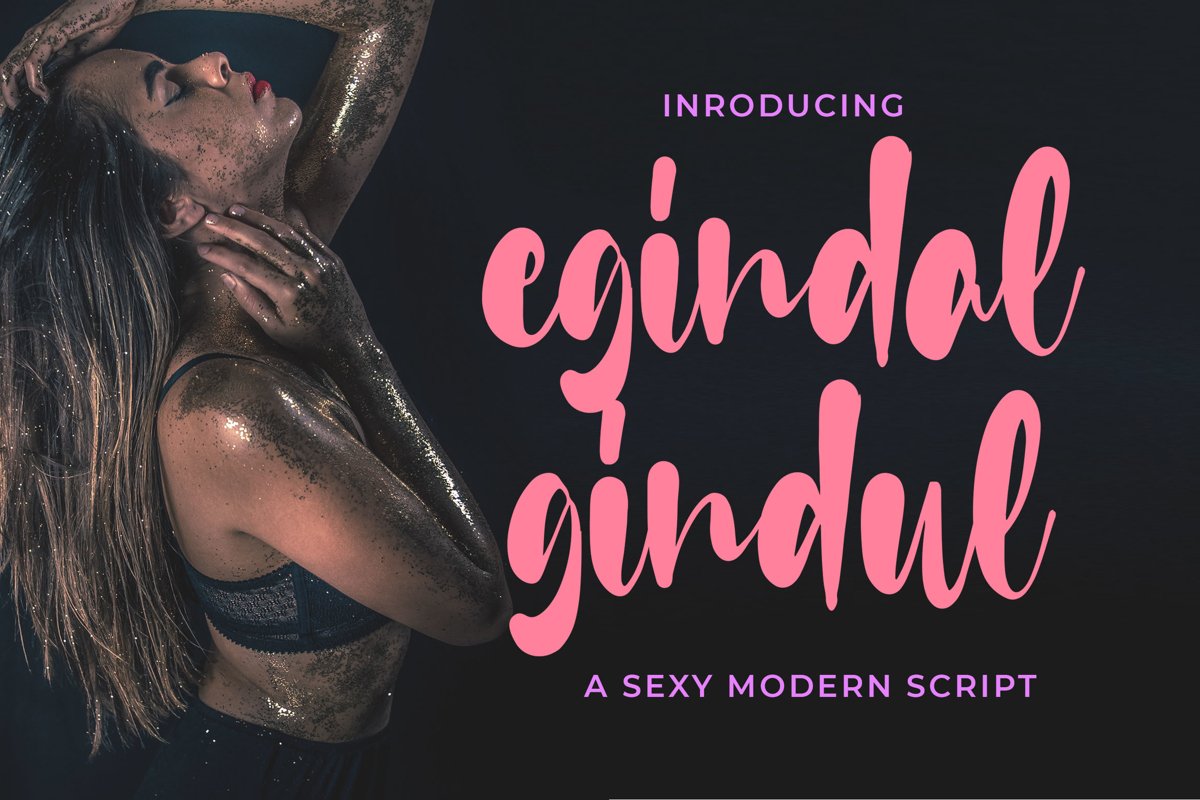
Introducing of our new product the name is Egindal Gindul Sexy Script. Egindal Gindul inspired by modern calligraphy this font is a fun theme very good for signature, poster, fashion, wedding, branding etc
ŽžŠŒšŸÀÁÂÃÄÅÆÇÈÉÊËÌÍÎÏÐŁÑÒÓÔÕÖØÙÚÛÜÝßàáâãäåæçèéêëìíîïłñòóôõöøùúûüýÿ